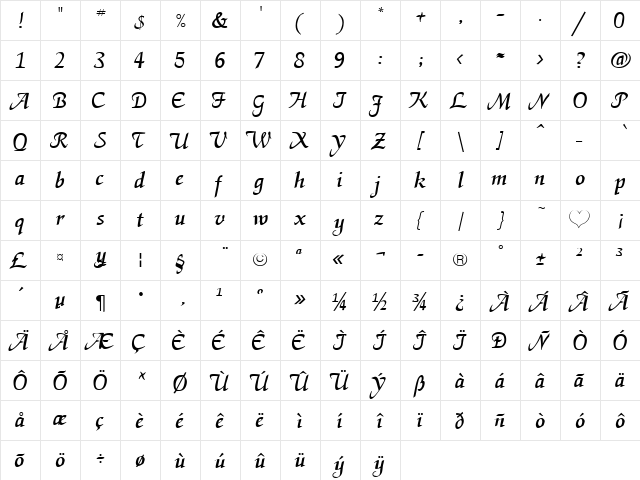
ElGarem Becker Normal Font Preview
ElGarem Becker Normal
Design Context for ElGarem Becker Typeface
ElGarem Becker takes a measured approach to typography — its balanced proportions and neutral character make it a reliable workhorse for both digital and print work.